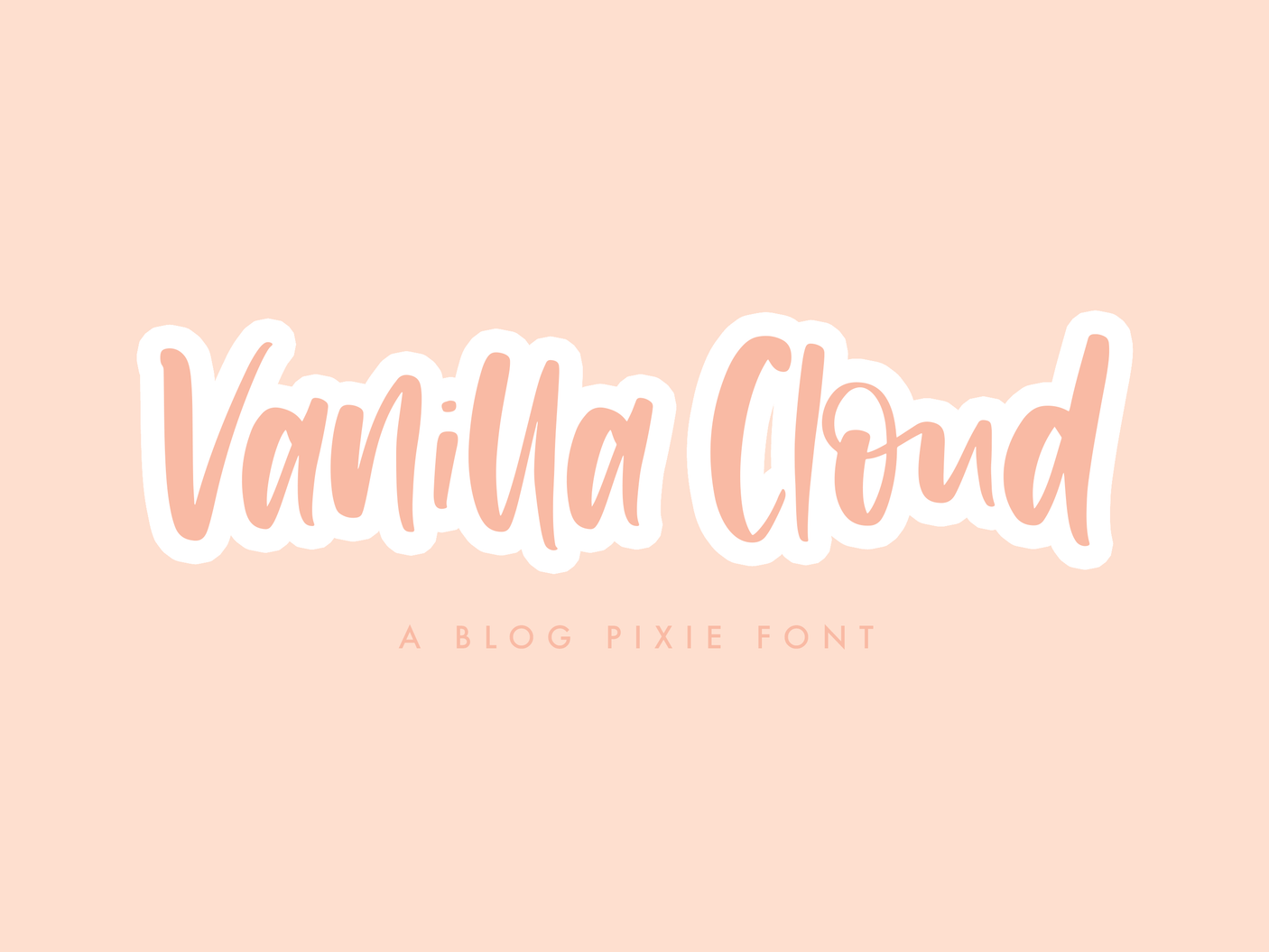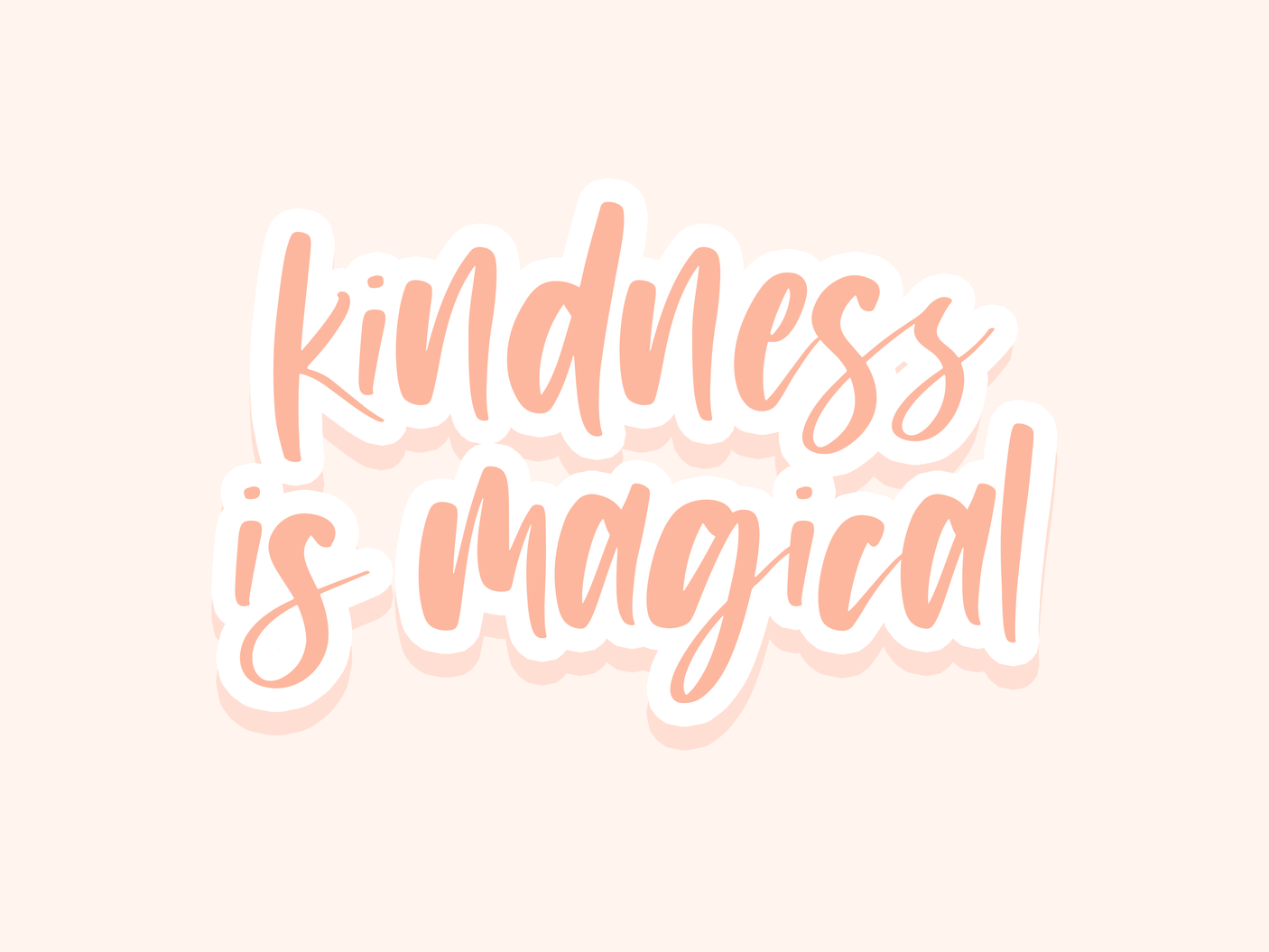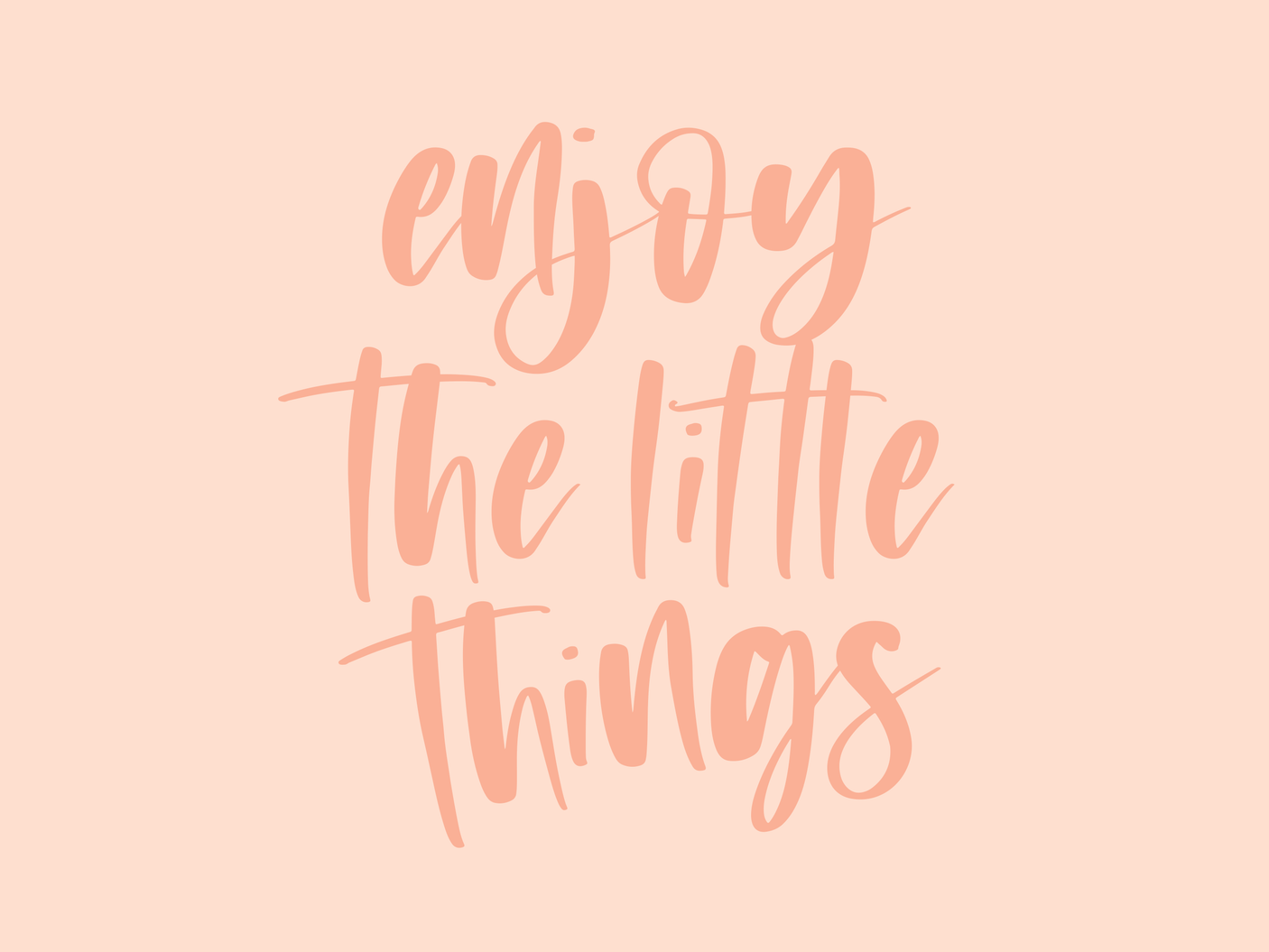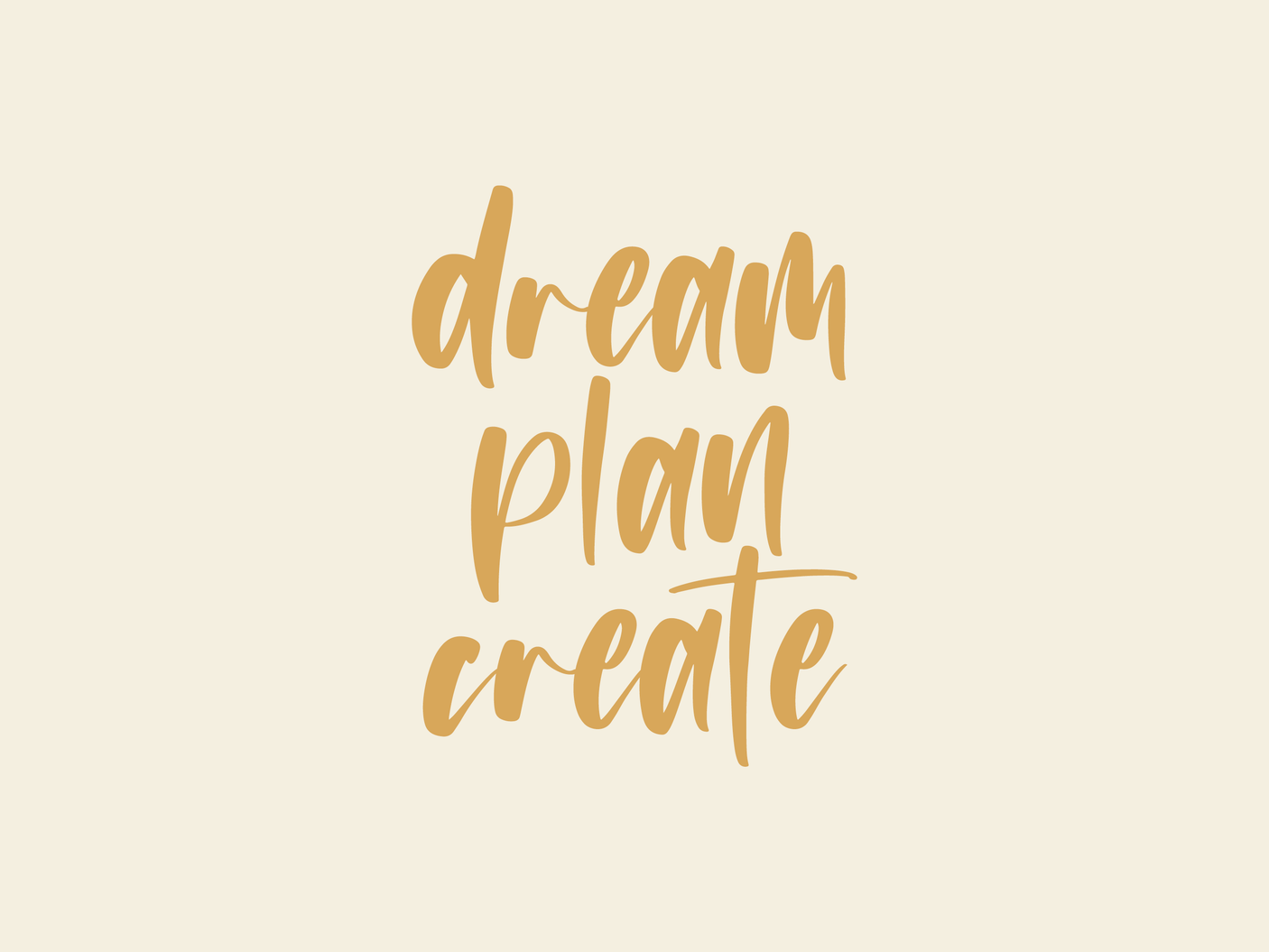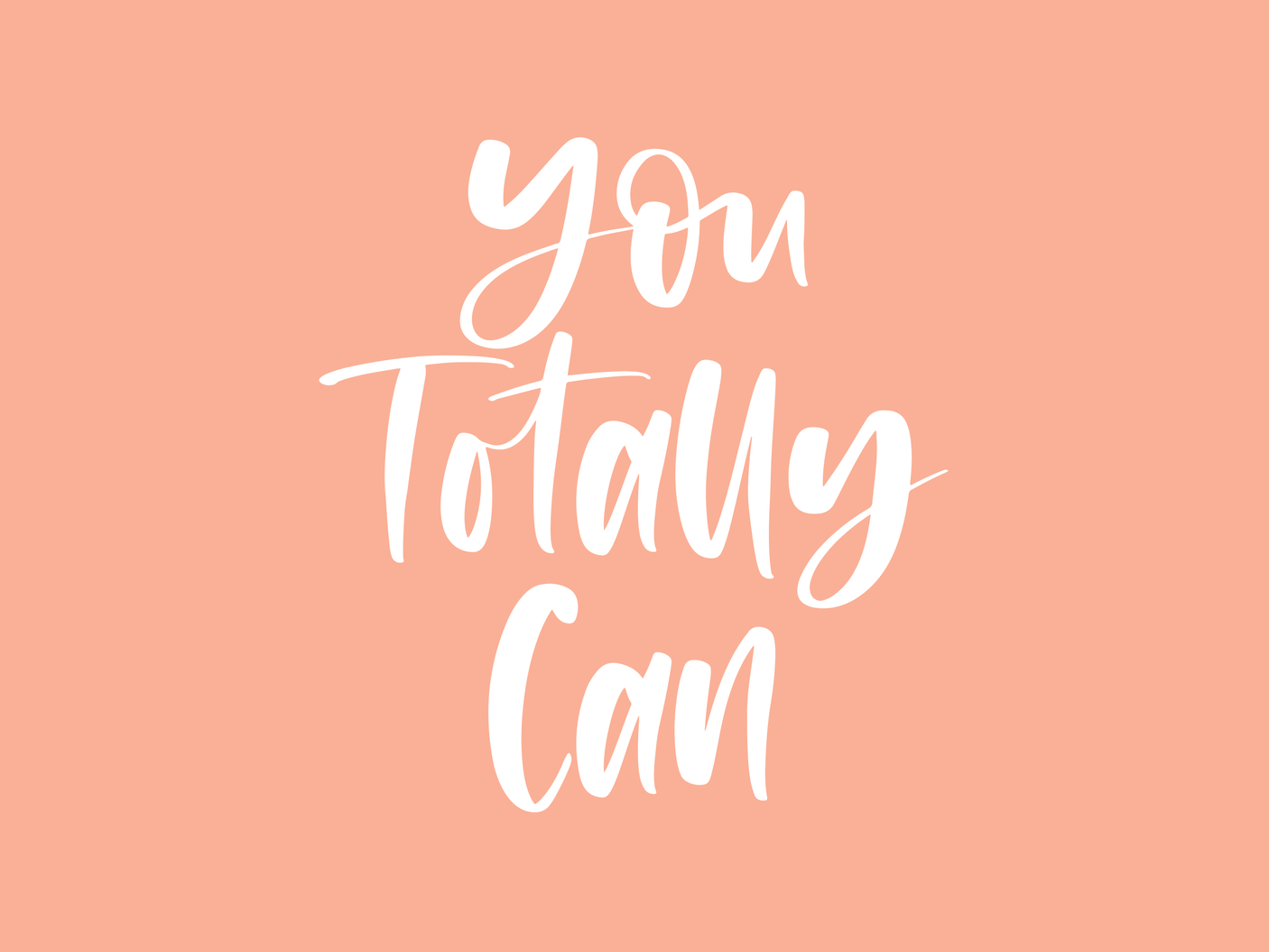
Vanilla Cloud Font
Vanilla Cloud is a cute handwritten brush script font to download. Perfect for printables, craft, cricut, mug design, clothing design, stationery, invitations and more!